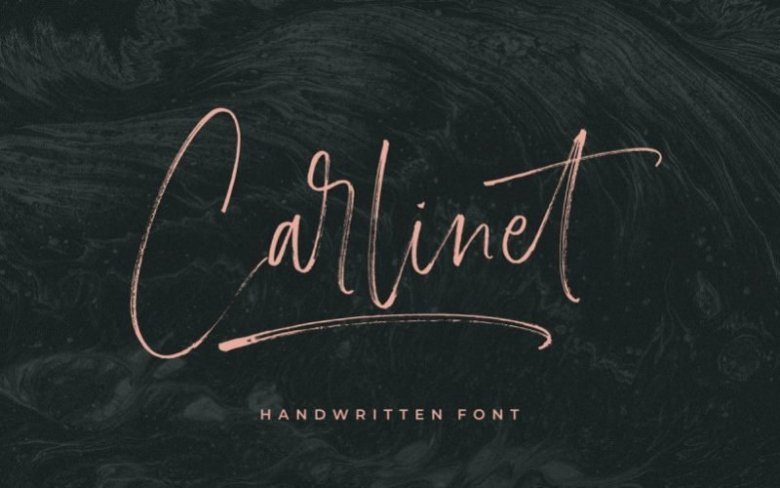
Carlinet Script Font
Carlinet Script Font is a stylish handwritten font with an amazing brush that adds a natural feel. Carlinet puts forward a warm and elegant impression. Marriott is made with a sense of joy letter by letter. This font is equipped with many ligatures and you can also use swashes with the Carlinet-swashes font file by typing letters from A-J.
Carlinet is perfect for branding & logo projects, also suitable for Product Packaging, Title on your article or book cover, Stationary, and many more.